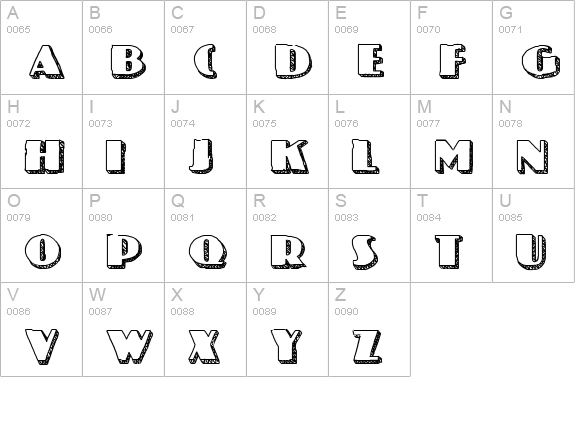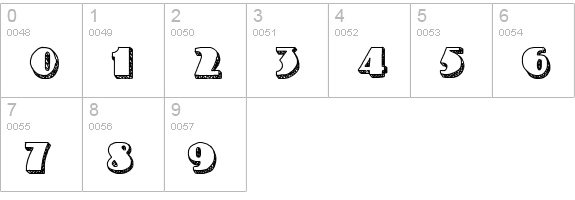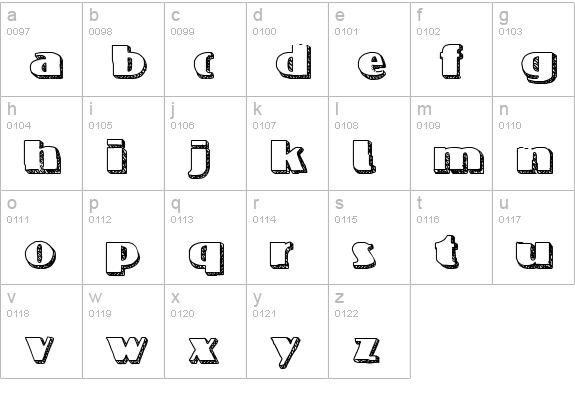
Introducing NineteenOhFive, a beautifully crafted font that effortlessly captures the essence of the early 20th century. With its elegant curves and timeless appeal, this typeface is perfect for adding a touch of vintage charm to any project. NineteenOhFive pays homage to the golden era of design, where sophistication and refinement were the hallmarks of typographic excellence. Its intricate letterforms evoke a sense of nostalgia, transporting you back to a time of elegance and grace. This font is more than just a typographic masterpiece; it is also a testament to the power of collaboration and community. Created by a team of dedicated designers and typographers, NineteenOhFive is the result of countless hours of dedication and passion. And the best part? NineteenOhFive is absolutely free! That's right, this stunning font is freely available to download at FontsMarket.com. Whether you're a professional designer or an aspiring artist, you can now access this exquisite typeface without breaking the bank. So go ahead, download NineteenOhFive and embark on a journey through time. Let its vintage charm transport you to a bygone era, where every letter was meticulously crafted and every word was a work of art. With NineteenOhFive, your designs will exude elegance and sophistication, making a lasting impression on anyone who comes across them. Don't miss out on this incredible opportunity to enhance your creative projects with a font that is both timeless and free. Visit FontsMarket.com today and discover the magic of NineteenOhFive.